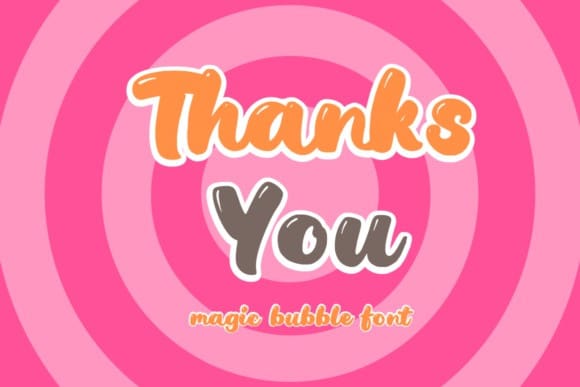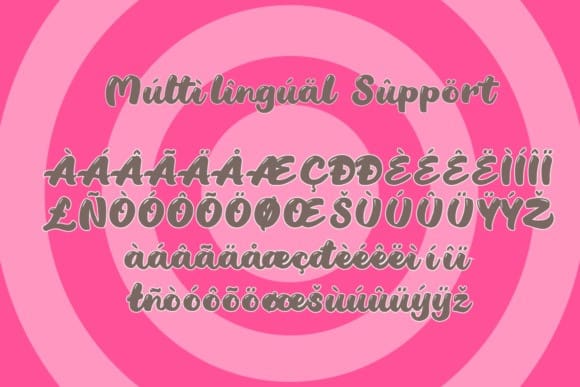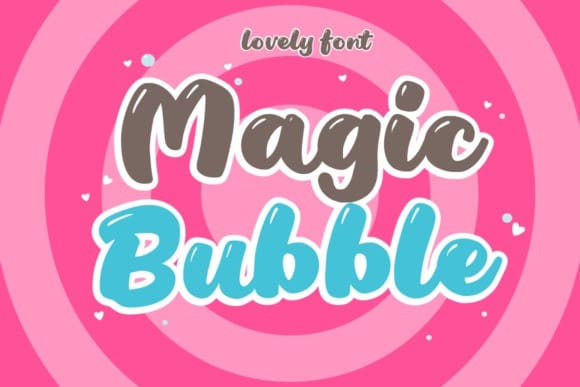
Magic Bubble Font
Magic Bubble Font is a cute and bubbly handwritten script font. This font would be perfect for photography, watermarks, social media posts, advertisements, logos & branding, invitations, product design, labels, stationery, wedding designs, product packaging, special events, and other projects.